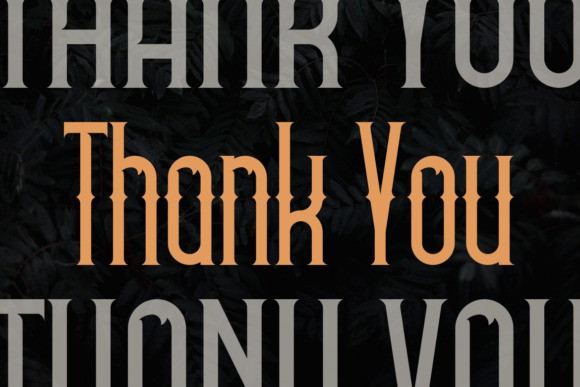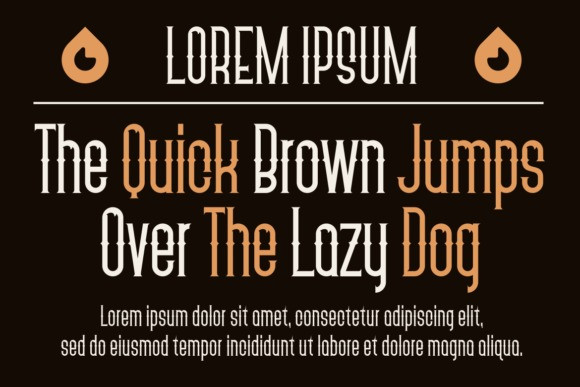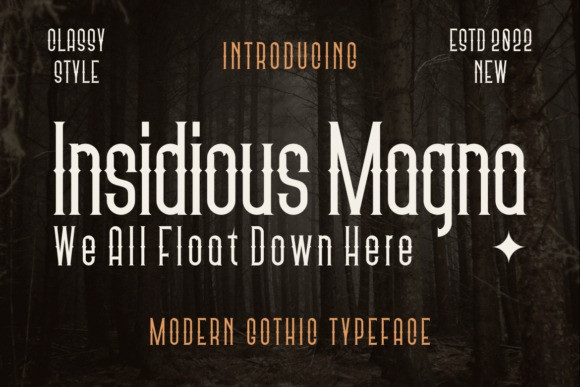
Insidious Magna Font
Insidious Magna Font, This blackletter font is an elegant and modern twist on a timeless classic. Insidious Magna’s sharp edges, balanced strokes, and appealing writing technique combine to create an eye-catching and stylish typeface.